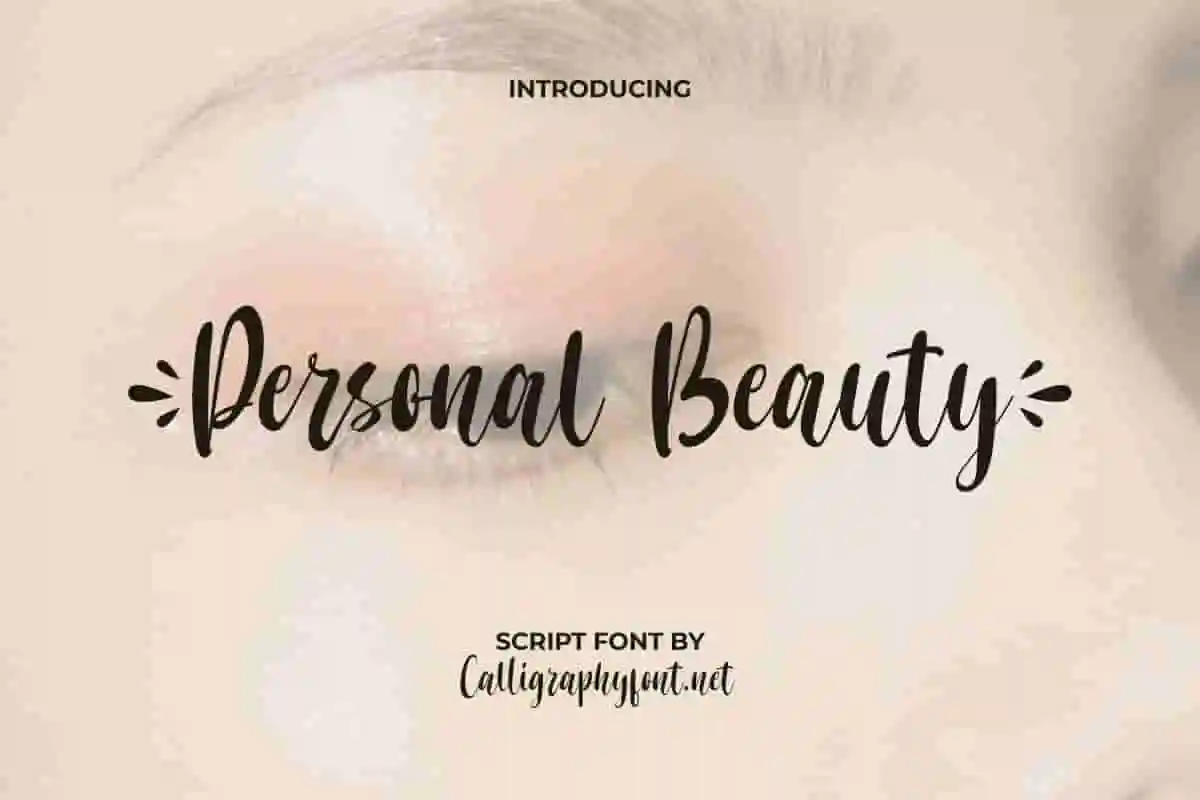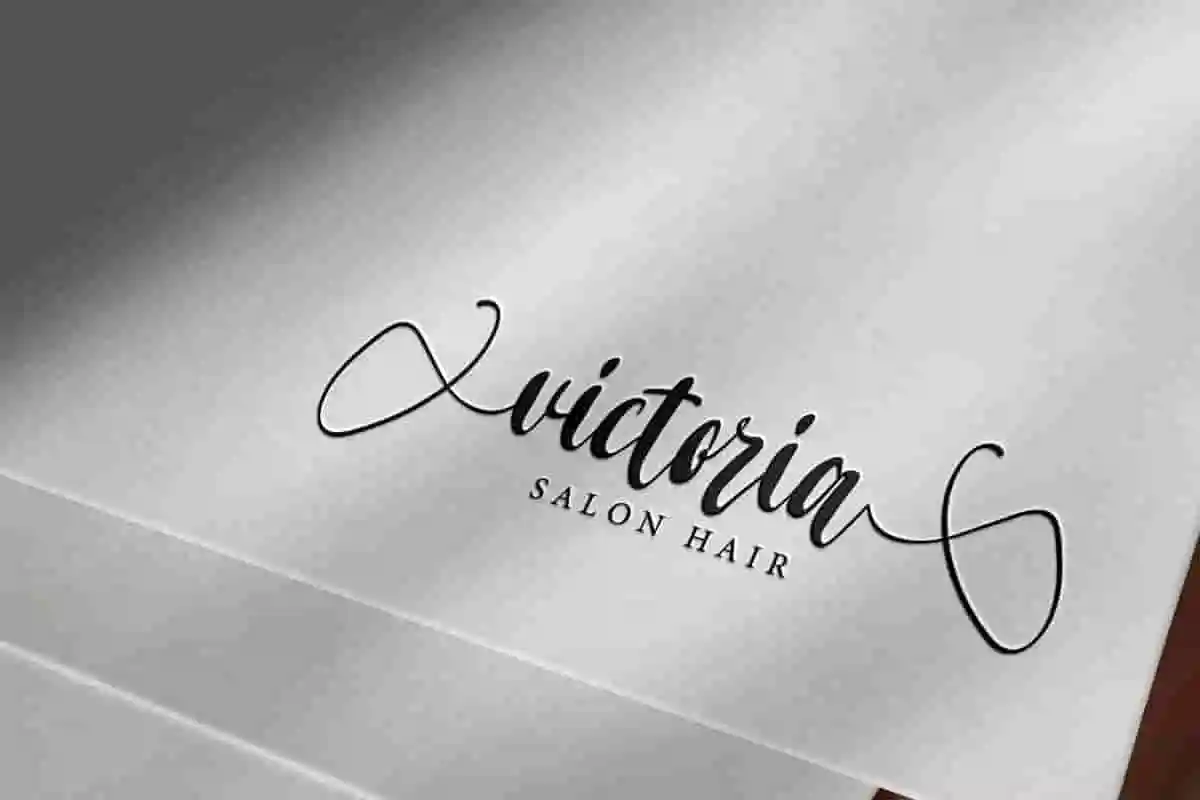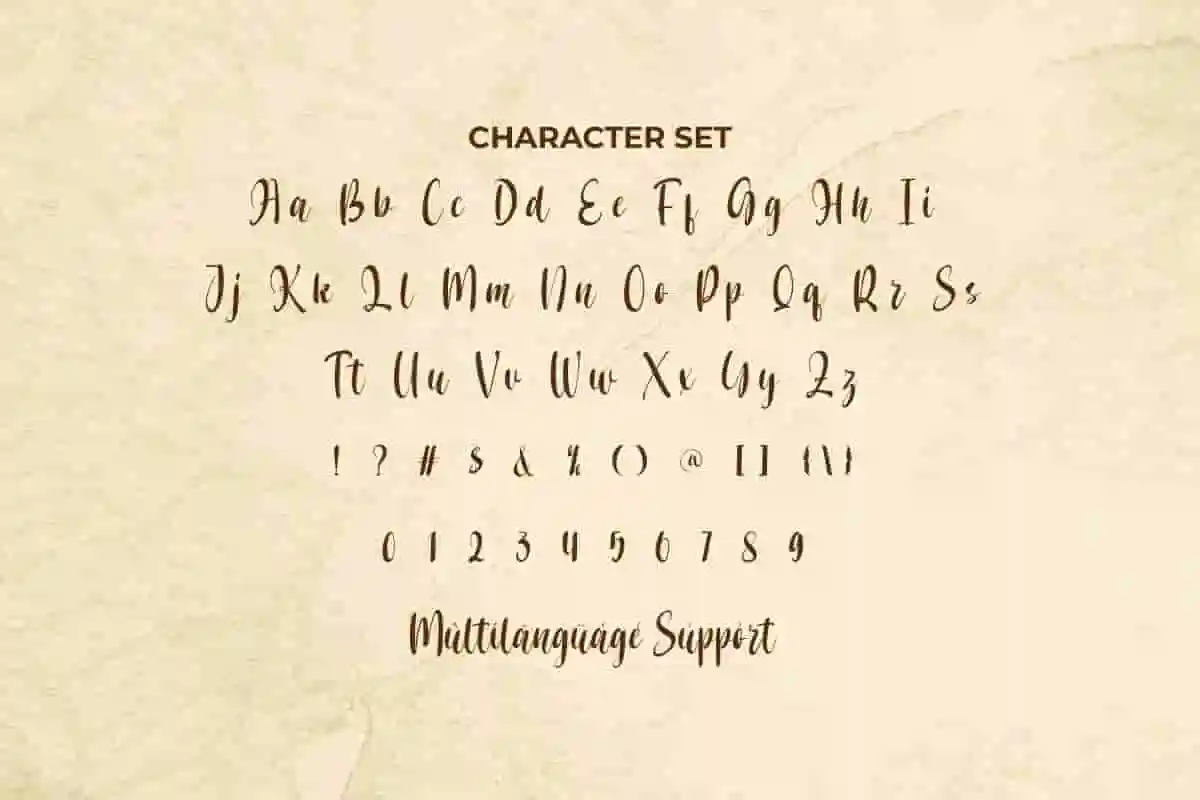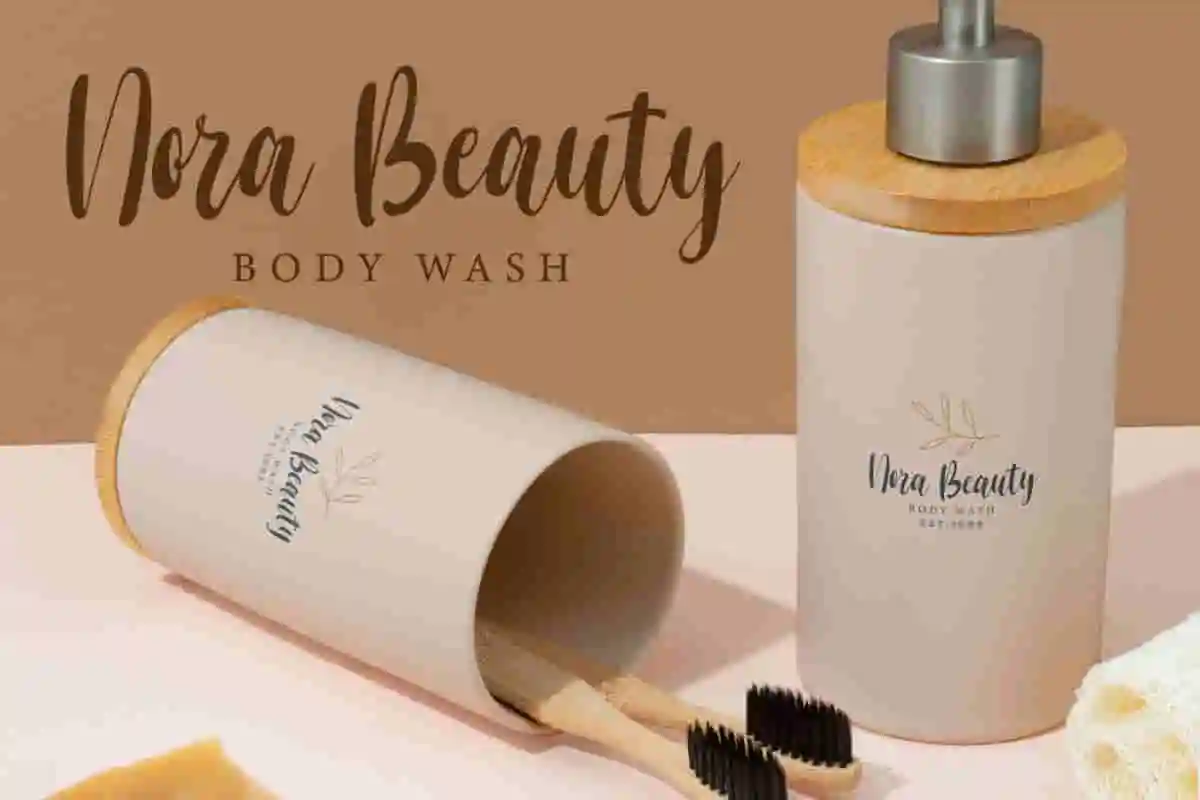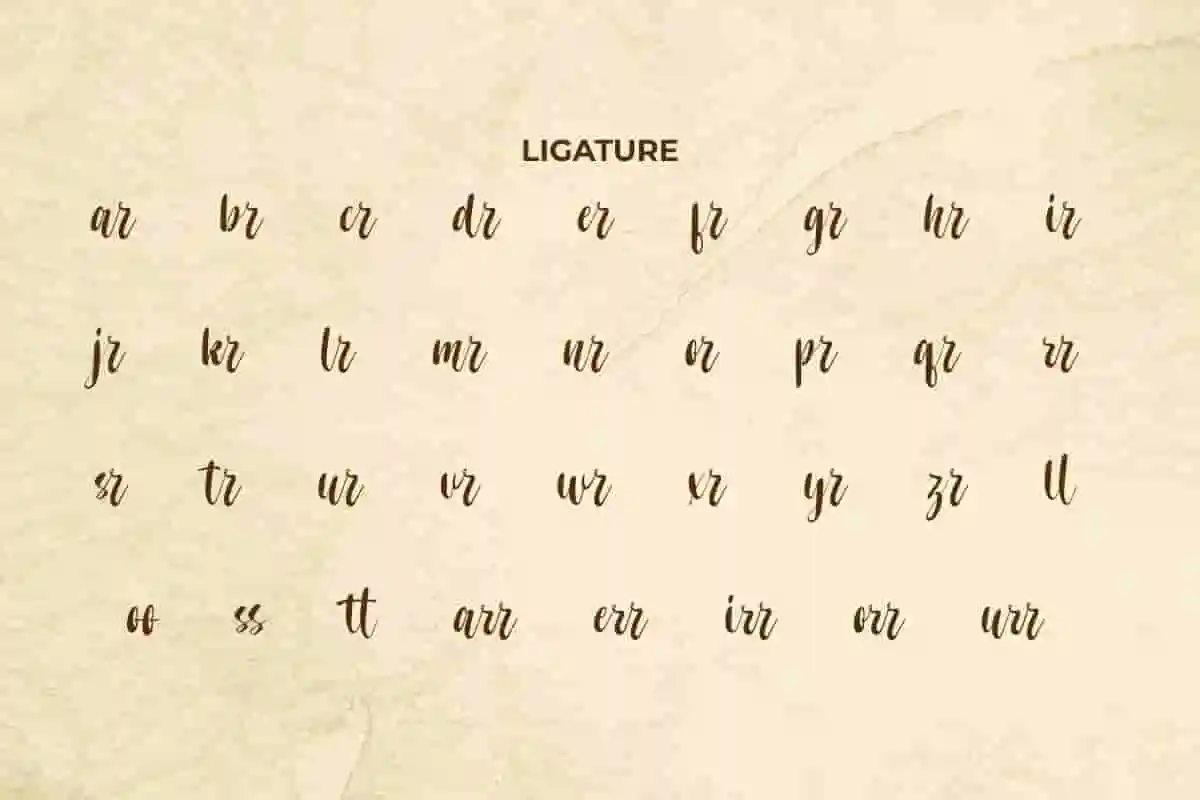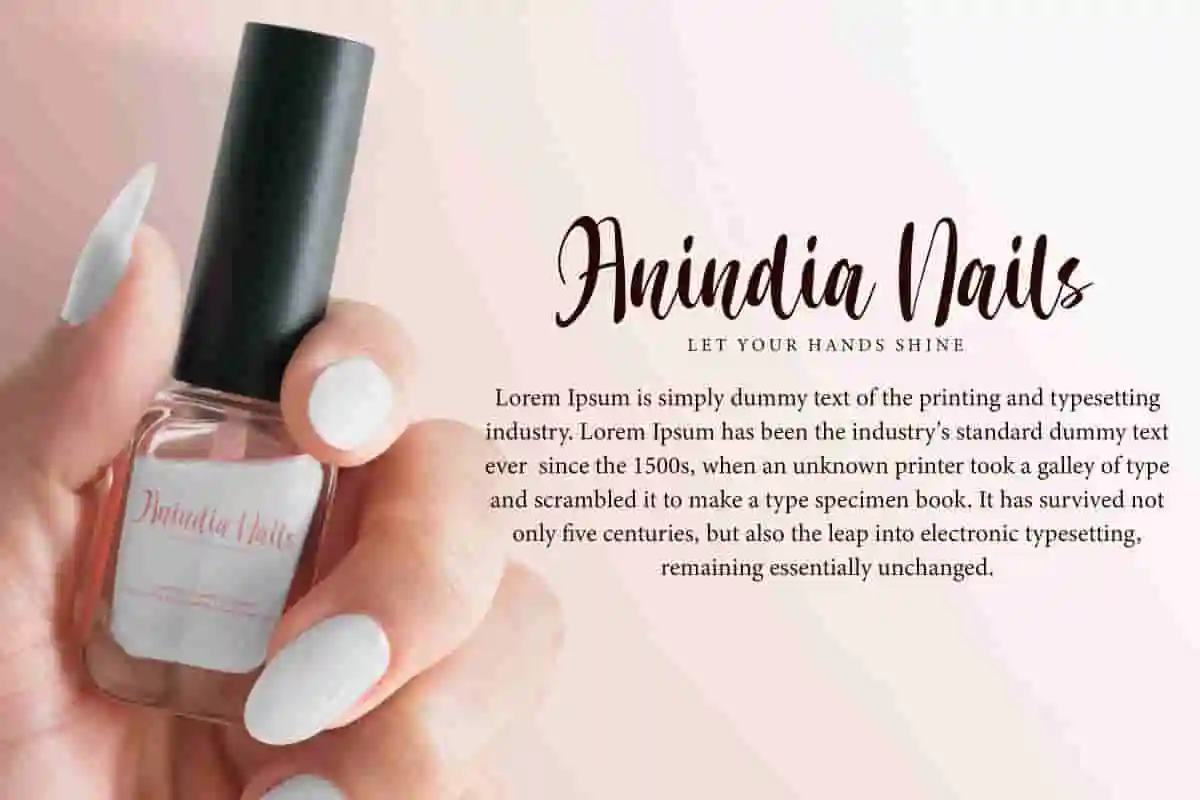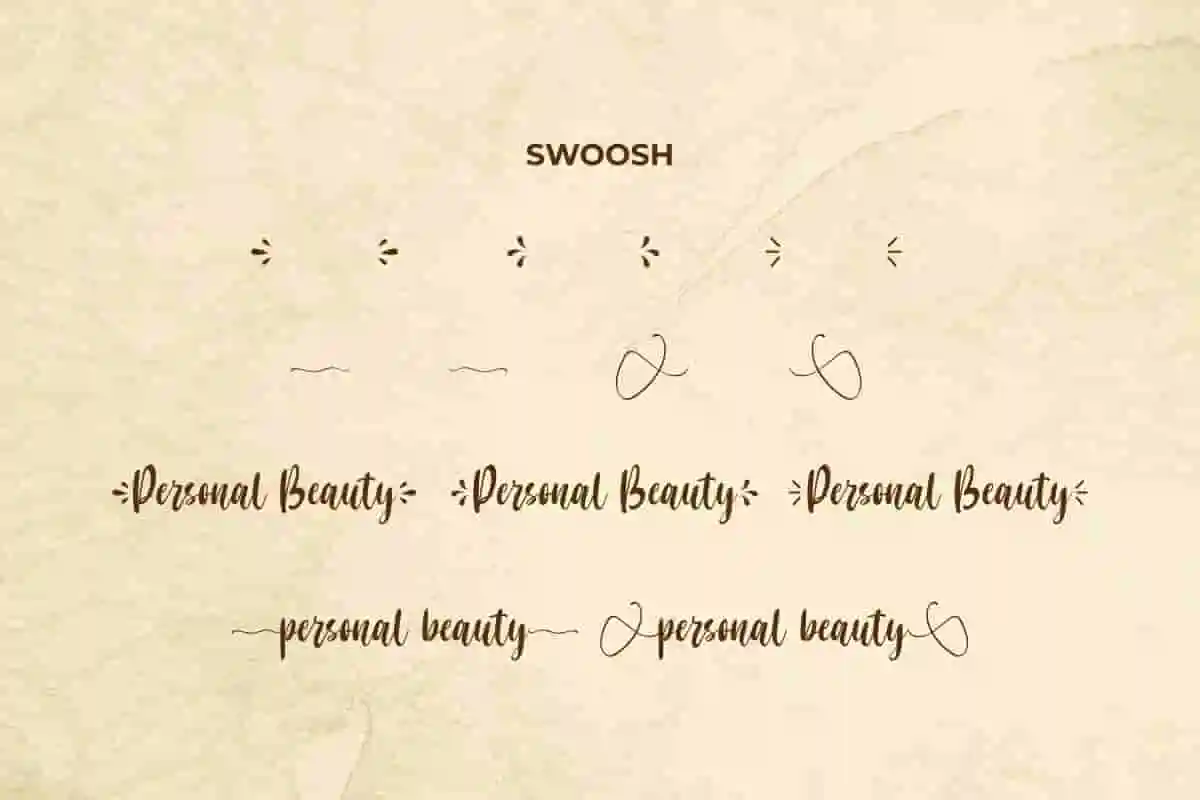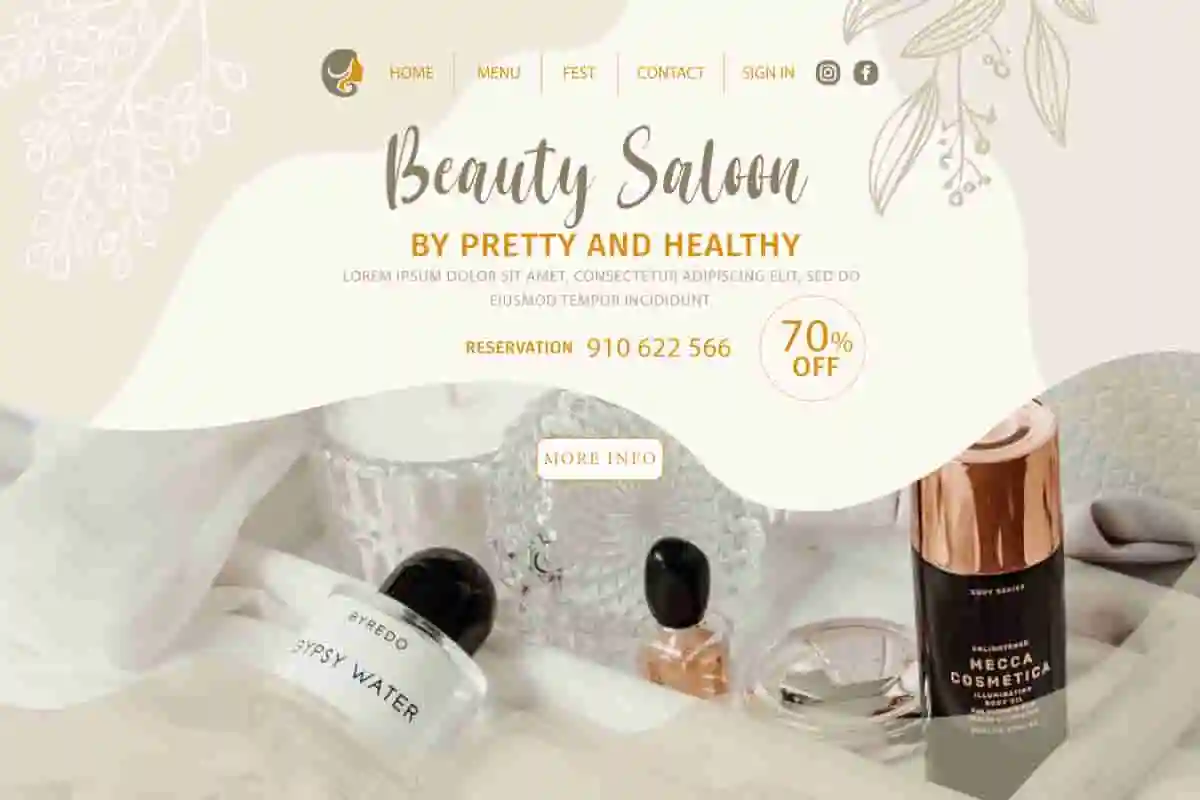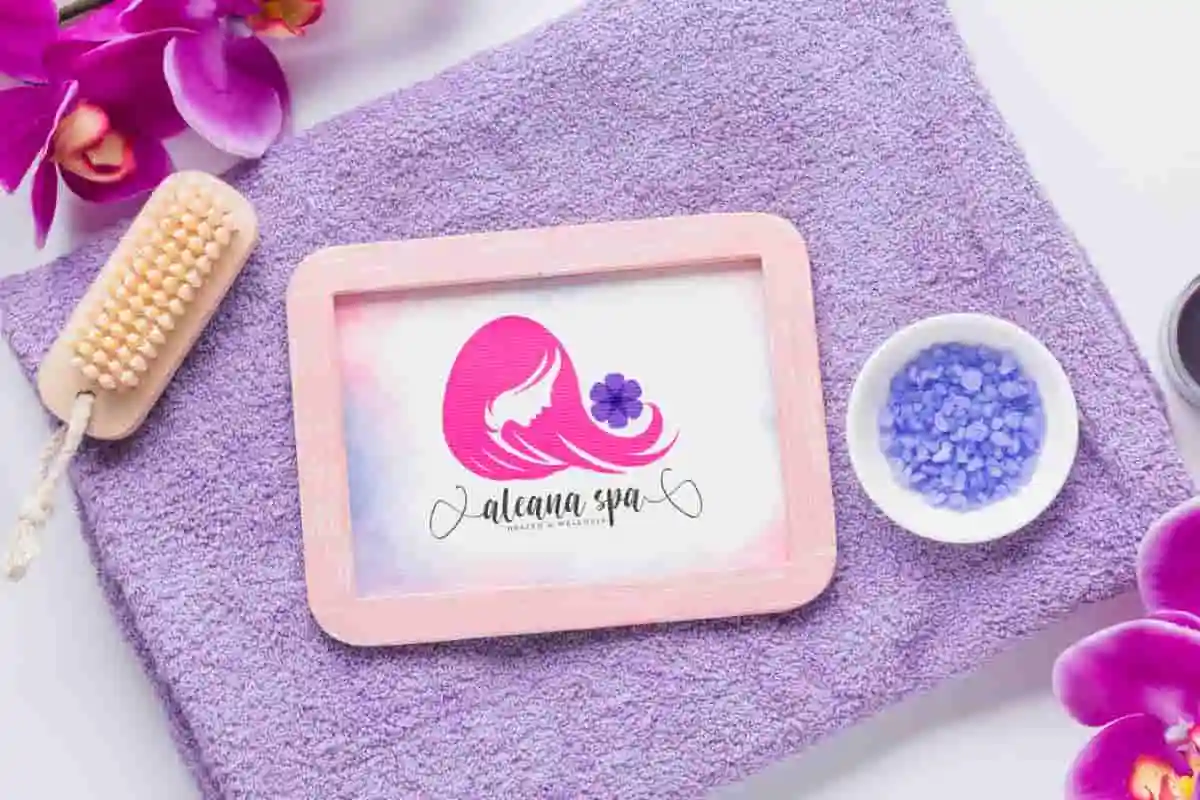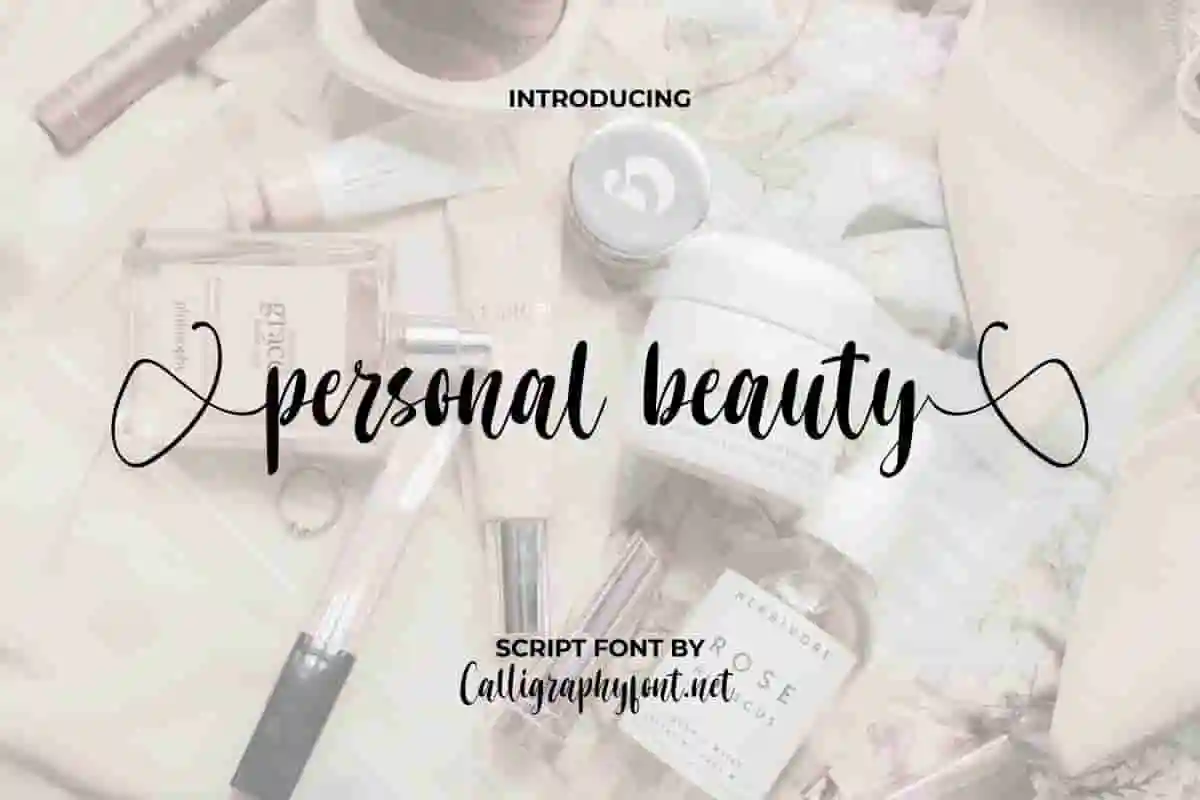
Personal Beauty Calligraphy Font
Personal Beauty Font is an elegant script font with an awesome allure. It will be perfect for brand logo, cosmetic, magazine catalog, restaurant, sticker, or just used to express words above the background.
Personal Beauty Font is a beautiful delicate calligraphy script font with elegant awesome allure. This font is carefully crafted to create neat and flawless writing that will enhance any creative project, such as apps, brand logo, cover, embossed design, label, product packaging, quote, screen print, stationery, sticker, watermark, website, title, and other projects that require an elegant touch.
Introducing the Personal Beauty Calligraphy Font, a stunning handwritten script designed to bring elegance, romance, and personality to every creative project. Whether you’re working on wedding invitations, brand identity, social media content, or personalized gifts—this font adds a touch of beauty and sophistication that can’t be ignored. With flowing curves, delicate strokes, and a natural handwritten feel, Personal Beauty is perfect for designers who want their work to stand out while still feeling warm and human.
Make your designs unforgettable with the Personal Beauty Calligraphy Font, a luxurious handwritten script that blends grace, sophistication, and charm. Created for those who appreciate detail and femininity, this font brings a soft, flowing touch to every word you write. Whether you’re designing wedding stationery, creating brand logos, or adding elegance to social media graphics, Personal Beauty makes every project feel personal and refined.
Elevate your design projects with the timeless elegance of the Personal Beauty Calligraphy Font.
- Feminine Branding & Logos
- Personalized Gifts & Packaging
Personal Beauty Font gives a modern look that is not boring and can make it a great choice for any industry, accessories, boutique, cosmetic, event organizer, florist, furniture, jewelry, nail art, printing, publishing, real estate, restaurant, spa salon, writer, etc. This font is here and ready to accompany you with real personal beauty nuances.
Personal Beauty Font comes with a full set of Uppercase and Lowercase Basic Characters, Number, a large range of Punctuation and Symbol. It is also equipped with Ligature and Swoosh characters which will add artistic value to the font. Ready to use both on Windows machine or Mac with simple installations. It’s tested to work well in the Adobe Apps (Illustrator, Adobe InDesign, Adobe Photoshop) CorelDraw, and others. It supports multilingual characters. PUA Encode Characters means you can access all the characters easily – Fully accessible without additional design software.